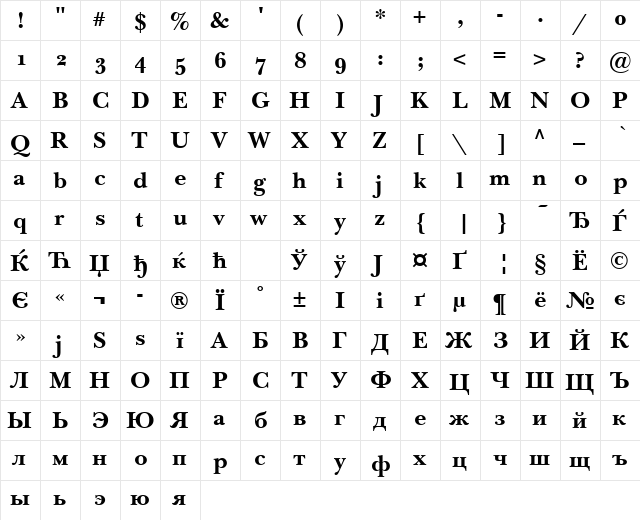
NewBaskervilleODTT Bold
Design Context for NewBaskervilleODTT Typeface
NewBaskervilleODTT offers clean, dependable letterforms without strong stylistic allegiance, making it a practical choice for designers who need flexibility. The heavy weight commands attention and anchors typographic hierarchies.